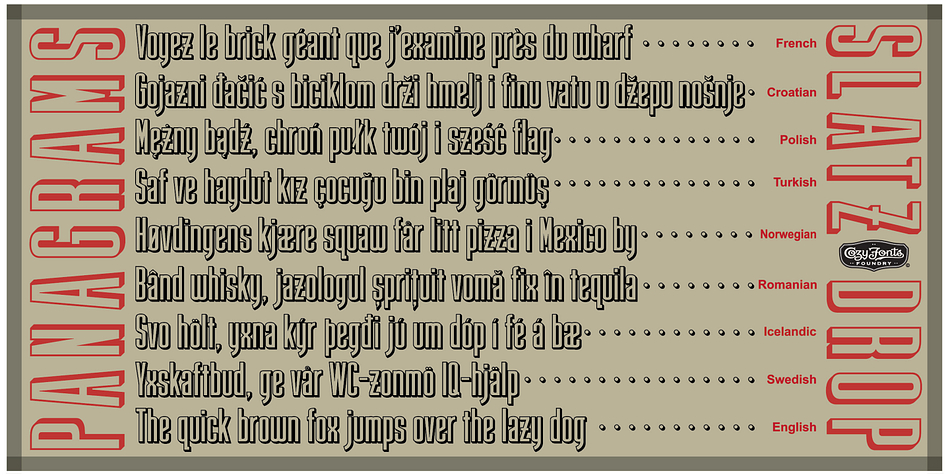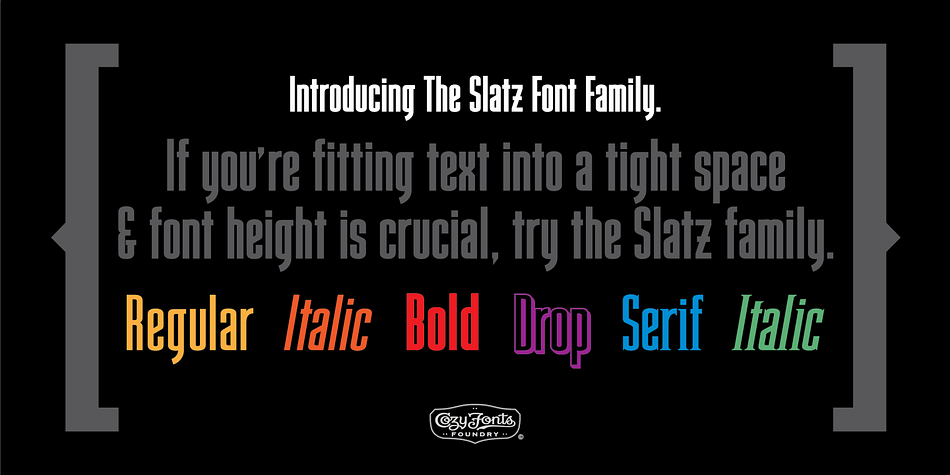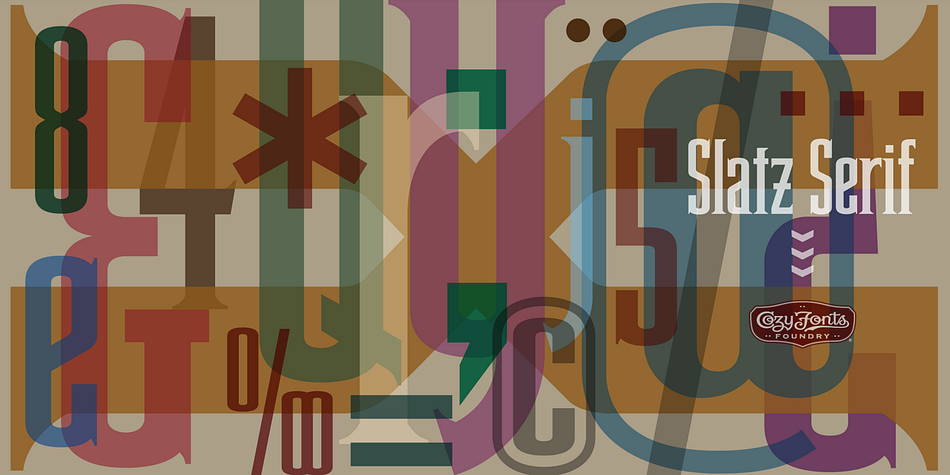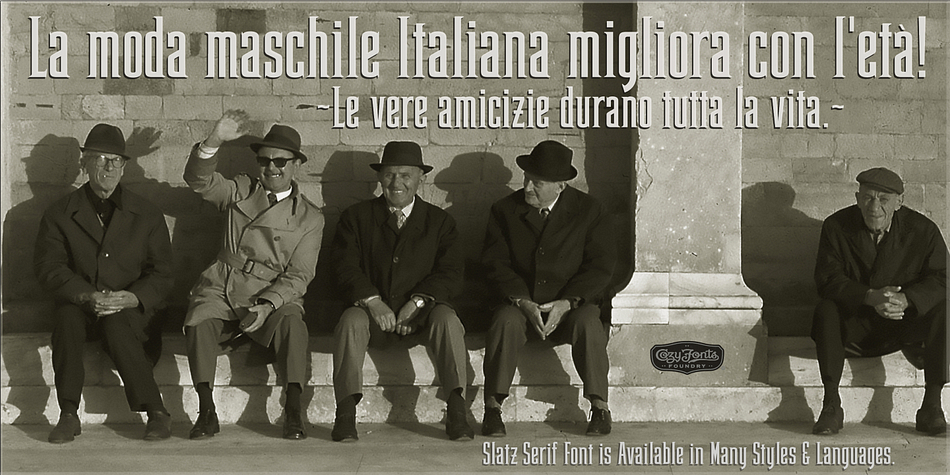
Slatz
Designed by Tom Nikosey, Slatz is a display sans, display serif and sans serif font family. This typeface has six styles and was published by CozyFonts Foundry.
The Slatz Font Family is Vertical. It has a slender, consistent weight that is best used in limited, left to Right, space limitations as to maximize font height. Slatz font variations all have extremely clean edges and even the serif versions are crisply defined with a flat-pointed serif for an added unique character.
The designed intent was for a tight kern, however evenly letterspacing these family members give a distinct personality and continues to command the negative space just as in tight kerned examples.
The compatible relationship of these font family members, serif to sans serif, and regular to italic is seamless and the overall design coloring of words as sentences is well balanced and extremely legible.
The Slatz Family fonts are matching members glyph to glyph yet there is a noticeable difference between the serif and sans serif members. The sans serif works in contemporary and vintage settings. The serif members work particularly well in vintage, period applications.
The Bold and Drop versions of Slatz also fit the above descriptions and also work on their own.